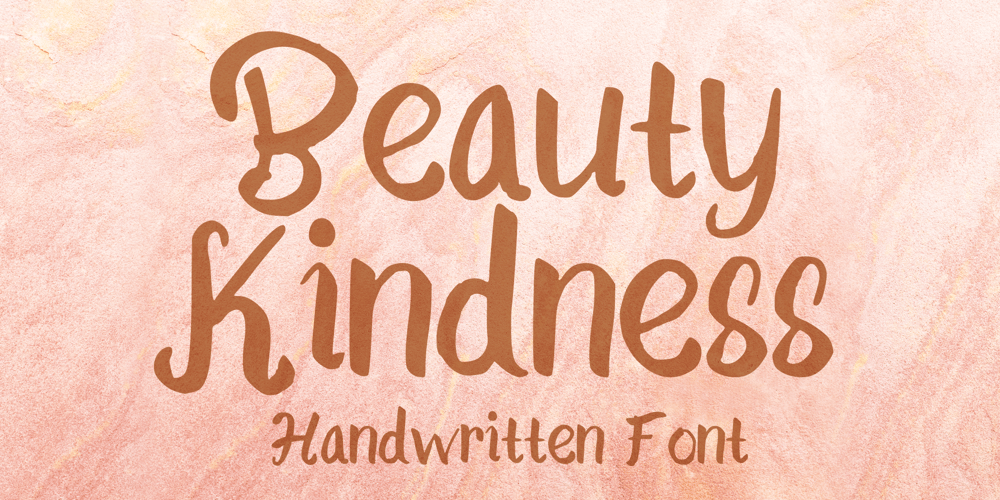
Beauty Kindness Font Family was designed by Gabriel Valentinus and published by Mvmet. Beauty Kindness contains 1 styles and family package options. Beauty Kindness is a beautiful display typeface that’s perfect for creating gorgeous headlines and designs with personality. This font makes an excellent typeface for vintage graphics, and the clean lines, elegant look to logos, wedding invitations, editorials, and more. The beautiful and romantic aesthetic of the font will elevate a wide range of design projects to the highest level.